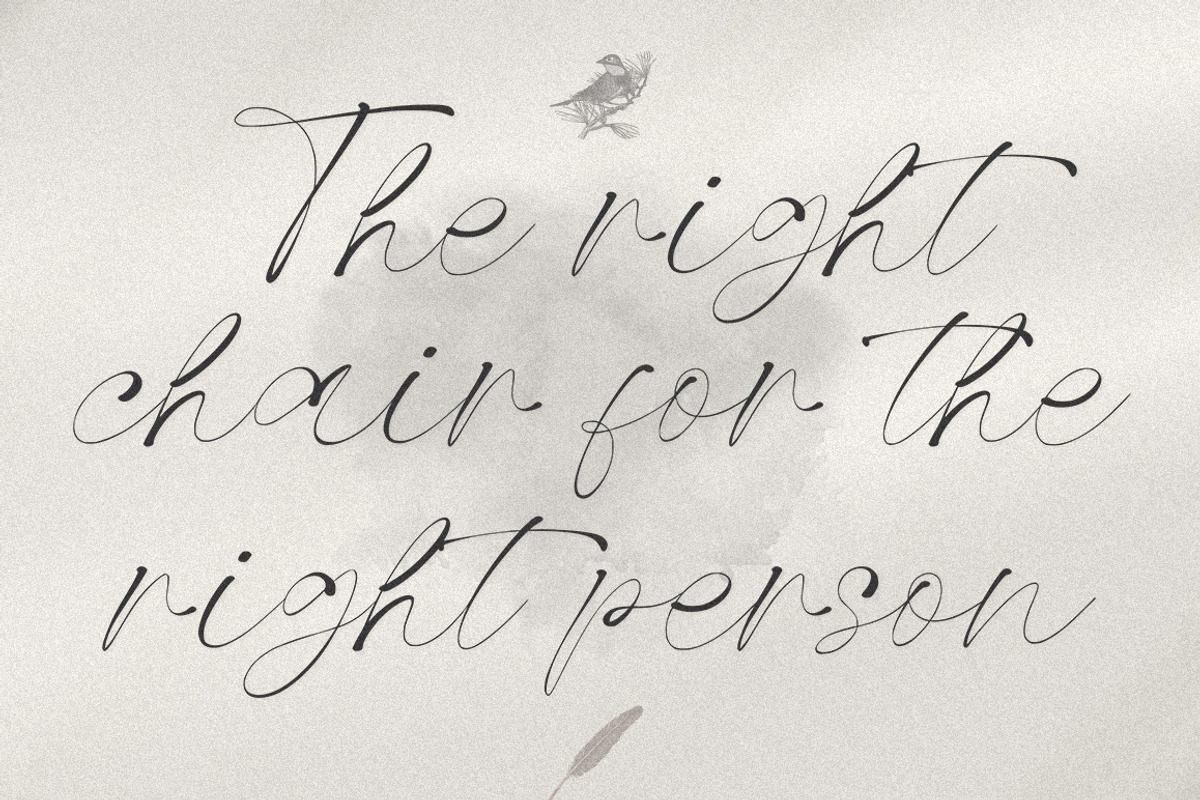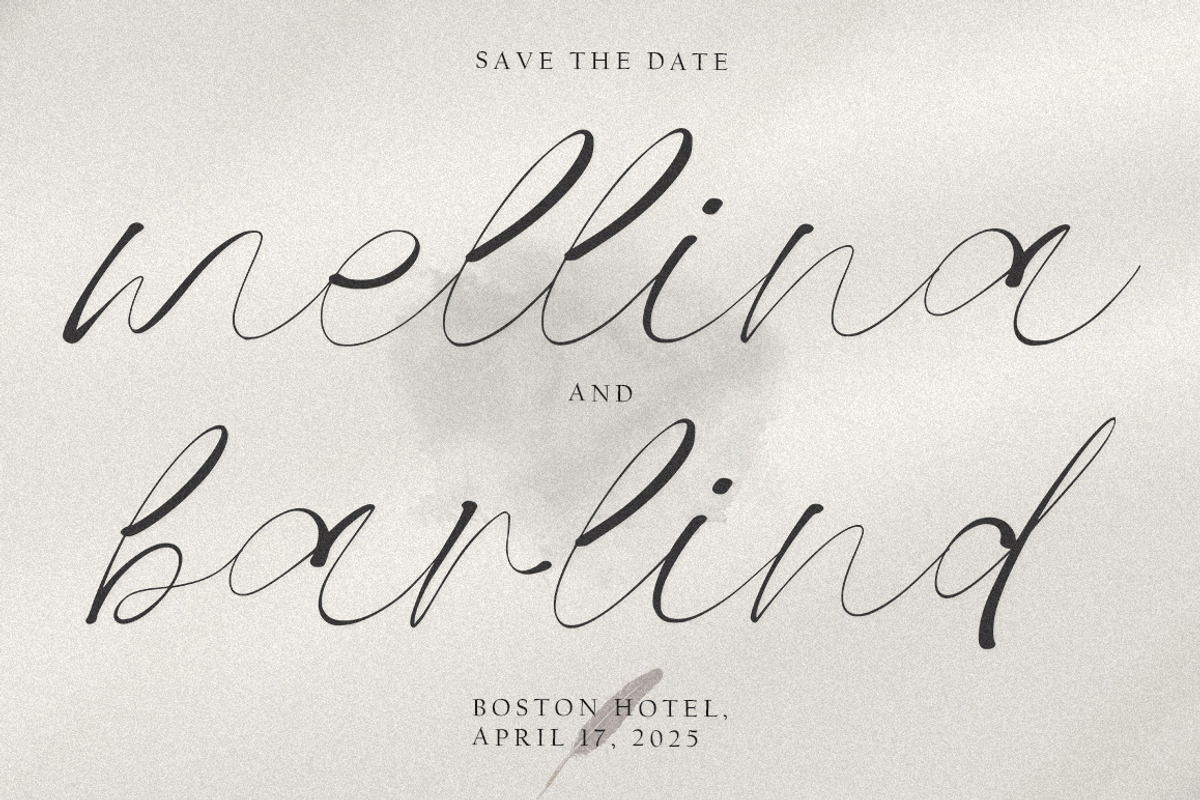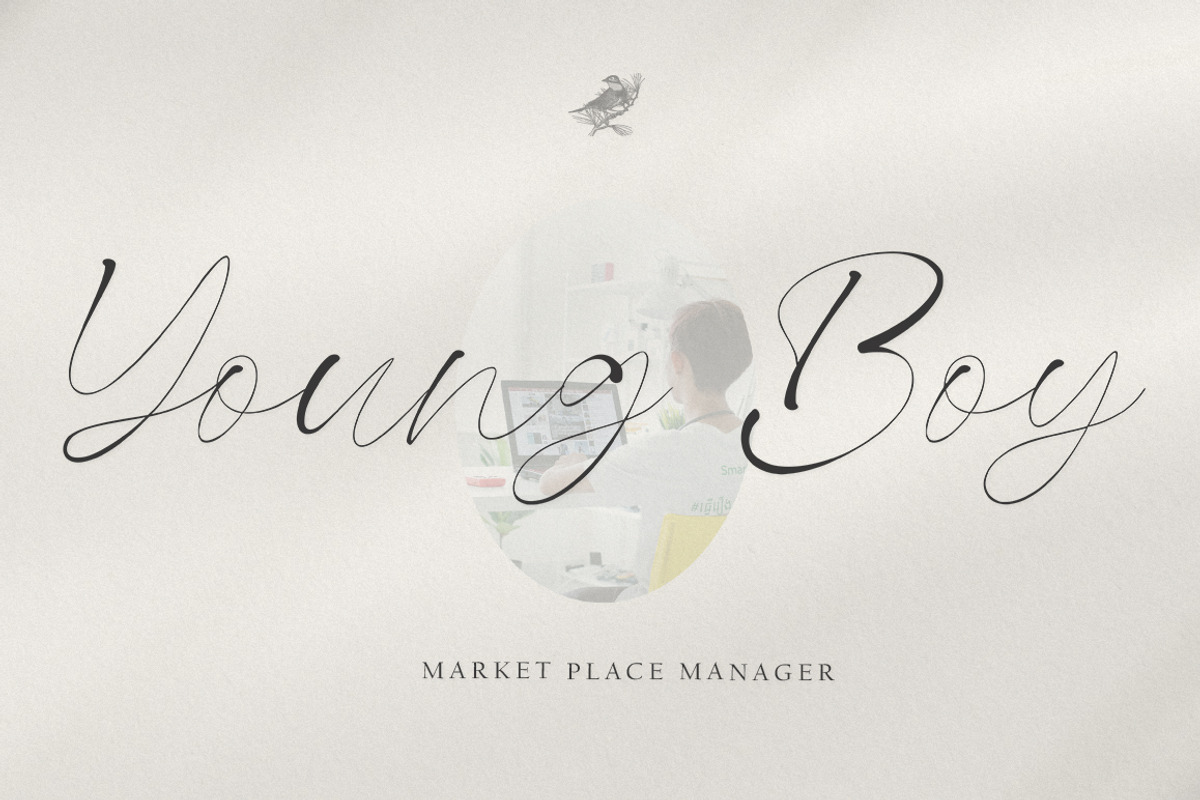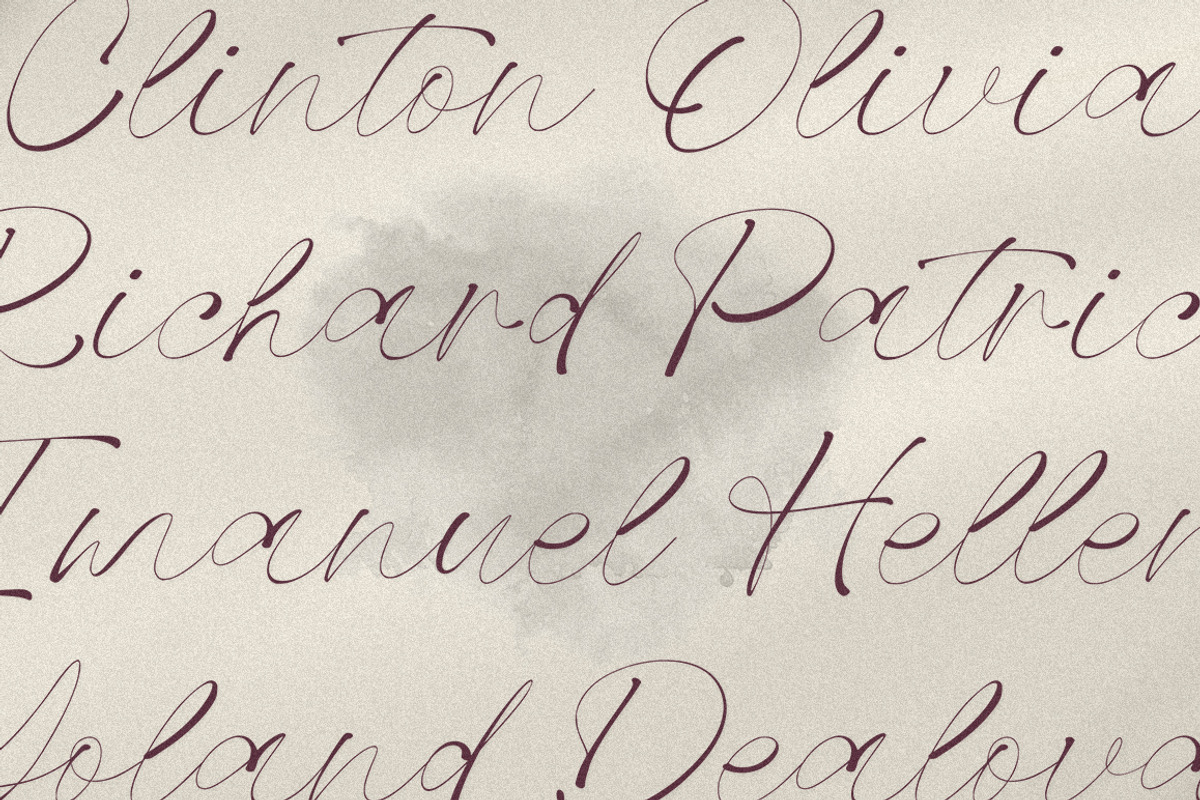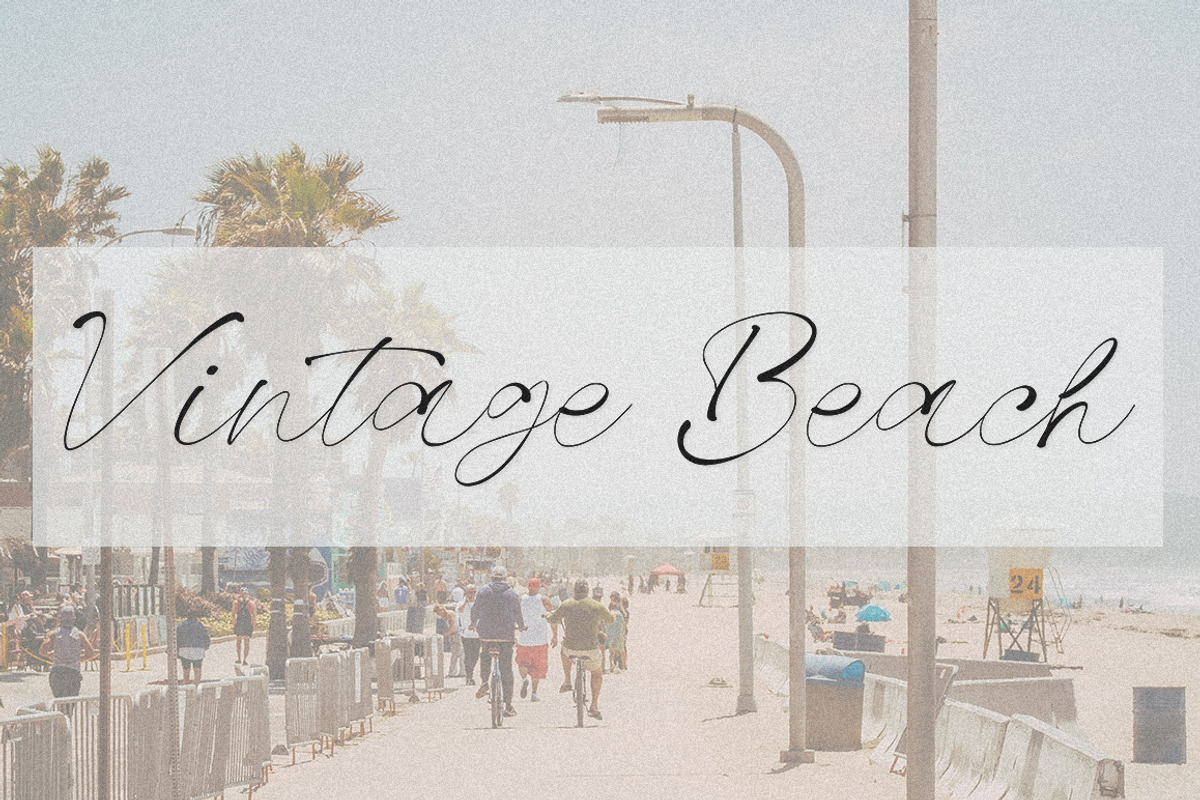
Selopaty Campble Script
Selopaty Campble is a beautiful and cool handwritten signature font. Looks amazing on branding, quotes, business cards and other designs.